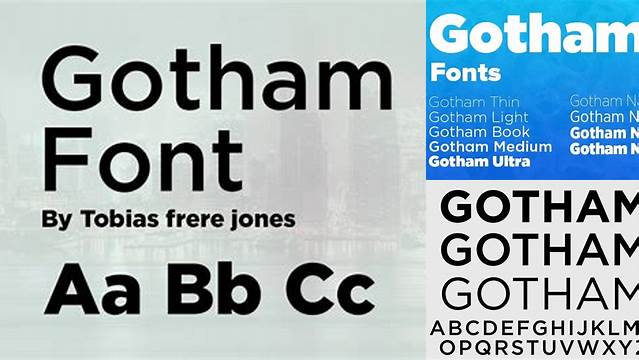
1. What is Gotham Font?
Gotham, that ubiquitous sans-serif typeface, has a fascinating story behind its creation. Designed by Tobias Frere-Jones in 2000, Gotham was inspired by the architectural signage of mid-century New York City. Think of those classic, bold letters you'd see on buildings and signs – that's the essence of Gotham. Its clean lines, geometric forms, and overall readability have made it a favorite for everything from corporate branding to website design. Gotham's neutrality and versatility are key to its widespread appeal; it doesn't scream for attention but instead lends an air of understated sophistication to any project. This makes it a fantastic choice for projects where the message needs to take center stage, rather than the font itself. The font family includes a variety of weights and styles, from thin to black, offering designers a wide range of options for different applications. Whether you're creating a logo, designing a website, or laying out a print publication, Gotham provides a reliable and visually appealing solution. Its popularity soared after being used in Barack Obama's 2008 presidential campaign, further solidifying its place in the design world. If you're aiming for a modern, clean, and professional look, Gotham is definitely a font to consider.
2. The History and Inspiration Behind Gotham
The story of Gotham is deeply rooted in the urban landscape of New York City. In 2000, Tobias Frere-Jones was commissioned by GQ magazine to create a new typeface that captured the spirit of the city. Frere-Jones drew inspiration from the unpretentious, utilitarian signage prevalent in mid-20th century New York. He meticulously researched and photographed these letterforms, paying close attention to the geometry and proportions of the characters. The result was Gotham, a typeface that embodies the city's modern, straightforward, and slightly industrial aesthetic. The influence of engineering and architectural lettering is evident in Gotham's clean lines and geometric shapes. It's a font that feels both contemporary and classic, a testament to the enduring appeal of well-designed typography. The historical context of Gotham is crucial to understanding its design. It wasn't created in a vacuum; it's a direct response to a specific visual environment. This gives the font a sense of authenticity and purpose. Gotham isn't just a pretty typeface; it's a piece of New York City history translated into letterforms. Its design speaks to the city's pragmatic and functional aesthetic, making it an ideal choice for projects that require a clear, concise, and authoritative voice. From its initial commission for GQ magazine to its widespread adoption across various industries, Gotham's journey is a fascinating example of how typography can reflect and shape cultural identity.
3. Key Characteristics of Gotham Font
What makes Gotham so recognizable? It's all about those distinct characteristics! First and foremost, it’s a sans-serif font, meaning it lacks the small decorative strokes (serifs) found in fonts like Times New Roman. This gives Gotham a clean, modern look. The letterforms are geometric and well-proportioned, creating a sense of balance and clarity. Gotham's uniform stroke weight contributes to its legibility, making it easy to read in both headlines and body text. One of the most notable features of Gotham is its wide range of weights and styles. From the ultra-light to the extra-bold, Gotham offers versatility for various design applications. The font family also includes condensed and expanded versions, further expanding its usability. This flexibility makes it a great choice for projects that require visual hierarchy and typographic contrast. The overall impression of Gotham is one of neutrality and sophistication. It doesn't have any overly stylistic flourishes that might distract from the message. Instead, it provides a solid foundation for communication. Gotham's geometric forms and clean lines make it feel both modern and timeless, a rare combination in the world of typography. Its widespread use in corporate branding and advertising speaks to its ability to convey professionalism and trustworthiness. If you're looking for a font that's both legible and visually appealing, Gotham's key characteristics make it a strong contender.
4. Gotham Font Family Weights and Styles
The true beauty of Gotham lies in its expansive family of weights and styles. This versatility allows designers to use Gotham in a myriad of ways, from delicate headlines to sturdy body text. The font family typically includes weights ranging from Thin to Black, providing a wide spectrum of visual emphasis. Gotham Thin is perfect for adding a touch of elegance and sophistication, while Gotham Black commands attention with its bold presence. In between these extremes are weights like Light, Regular, Medium, and Bold, each offering a different level of visual impact. In addition to the standard weights, Gotham also comes in italic versions, adding a touch of dynamism and flair. The italic styles maintain the geometric structure of the regular versions while introducing a subtle slant that enhances readability. The Gotham family often includes condensed and expanded versions as well. Condensed versions are narrower, allowing you to fit more text into a limited space, while expanded versions are wider, creating a more open and airy feel. This range of widths further enhances Gotham’s adaptability. Having such a comprehensive font family at your disposal gives designers the freedom to create visually compelling layouts with a consistent typographic voice. You can use different weights and styles to establish hierarchy, emphasize key elements, and create visual interest. Whether you're designing a logo, a website, or a print publication, the Gotham font family provides the tools you need to achieve a polished and professional look.
6. Gotham Font Alternatives (Free and Paid)
If Gotham is out of your budget or you're simply looking for something similar, there are plenty of alternatives to consider! Both free and paid options exist, each with its own unique character and strengths. For those seeking free alternatives, **